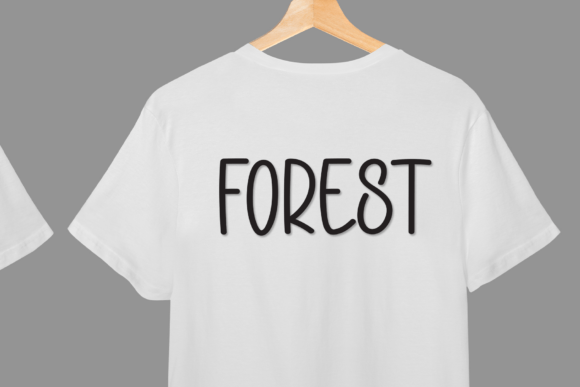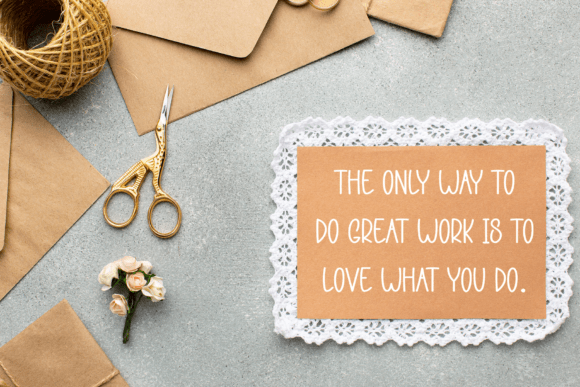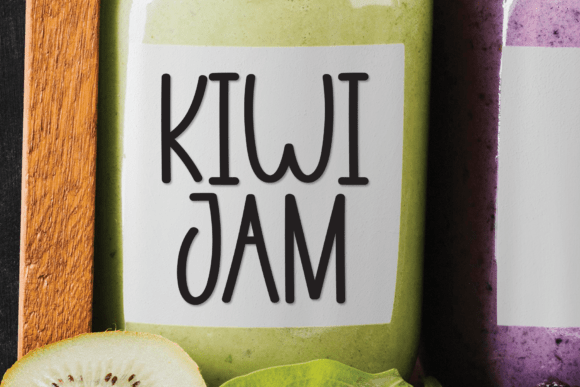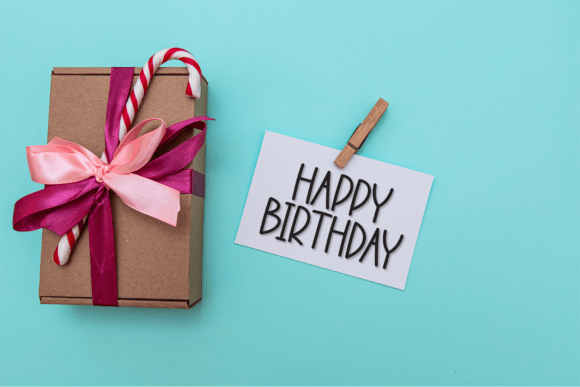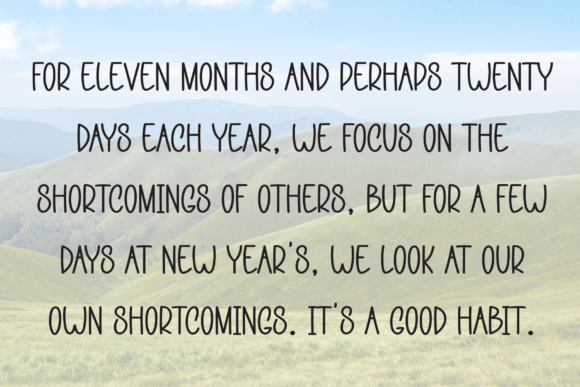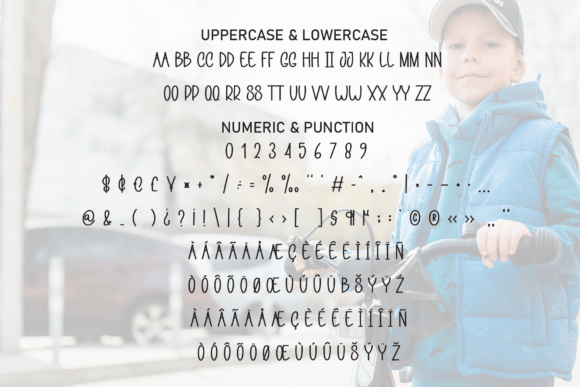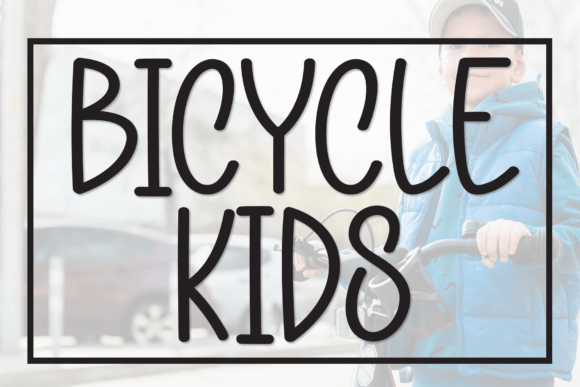
Bicycle Kids Font: A Bold and Friendly Display Font for Youth-Oriented Designs
In the world of typography, fonts play a crucial role in conveying the tone and personality of a brand. When it comes to designing for kids or youth-oriented marketing, a font that exudes friendliness, approachability, and playfulness is essential. This is where Bicycle Kids font comes into play. In this article, we’ll explore the features, benefits, and uses of Bicycle Kids font, a bold and friendly display font that’s perfect for creative designs.
What is Bicycle Kids Font?
Bicycle Kids font is a bold and friendly display font that offers a clean, “simple handmade” take on contemporary typography. Designed with kids and youth in mind, this font features vertically elongated letterforms with a consistent monolinear weight and soft, rounded terminals. The subtle hand-lettered irregularities and a bouncy baseline provide a warm, approachable visual flow that’s hard to resist.
Key Features of Bicycle Kids Font
• Vertically Elongated Letterforms: The font’s letterforms are stretched vertically, giving it a unique and playful look.
• Consistent Monolinear Weight: The font features a consistent weight throughout, providing a clean and modern look.
• Soft, Rounded Terminals: The soft, rounded terminals add a touch of friendliness and approachability to the font.
• Subtle Hand-Lettered Irregularities: The font’s subtle hand-lettered irregularities give it a human touch, making it feel more approachable and warm.
• Bouncy Baseline: The bouncy baseline adds a playful and energetic feel to the font, making it perfect for youth-oriented designs.
Benefits of Using Bicycle Kids Font
Bicycle Kids font offers several benefits for designers and crafters, including:
• Perfect for Youth-Oriented Marketing: The font’s playful and friendly design makes it perfect for marketing campaigns targeting kids and youth.
• Creative Product Packaging: The font’s unique design makes it an excellent choice for product packaging that needs to stand out.
• Approachable Branding: The font’s friendly and approachable design makes it perfect for branding projects that require a warm and inviting tone.
• High-Impact Social Media Headers: The font’s bold and playful design makes it perfect for social media headers that need to grab attention.
Who Can Use Bicycle Kids Font?
Bicycle Kids font is perfect for:
• Graphic Designers: Graphic designers can use Bicycle Kids font to create visually appealing designs for clients, especially those in the kids’ or youth market.
• Crafters: Crafters can use Bicycle Kids font to add a personal touch to their handmade products, such as stickers, signs, and other DIY projects.
• Marketers: Marketers can use Bicycle Kids font to create engaging and attention-grabbing marketing campaigns targeting kids and youth.
• Small Business Owners: Small business owners can use Bicycle Kids font to create a friendly and approachable brand identity.
Bicycle Kids font is a bold and friendly display font that’s perfect for youth-oriented designs. Its unique features, such as vertically elongated letterforms, a consistent monolinear weight, and soft, rounded terminals, make it an excellent choice for creative designs. With its approachable and playful design, Bicycle Kids font is perfect for graphic designers, crafters, marketers, and small business owners looking to create engaging and attention-grabbing designs.
So, if you’re looking for a font that can add a touch of friendliness and playfulness to your designs, look no further than Bicycle Kids font. Its versatility and unique design make it an excellent addition to any design project.